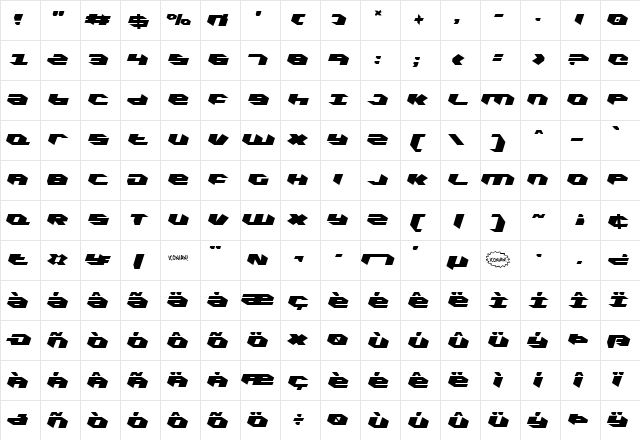
Kubrick Condensed Leftalic Font Preview
Design Context for Kubrick Condensed Leftalic Typeface
Kubrick Condensed Leftalic is a composed and adaptable typeface that performs quietly and consistently across a wide range of design contexts. Its italic angle brings a sense of urgency and motion to the letterforms. Its narrow stance lets it pack a punch even in space-constrained designs.